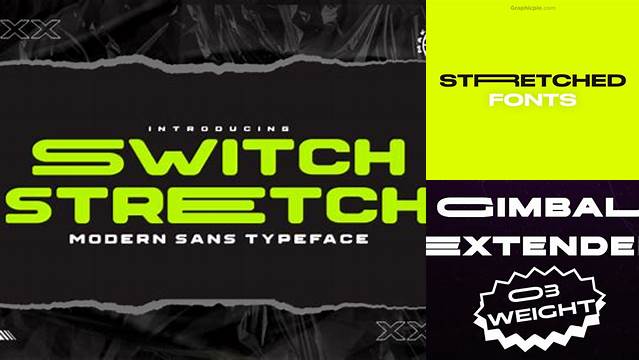
Stretched Fonts On DaFont: Your Guide
Are you looking to add a unique flair to your designs? Do you want to grab attention with bold, striking typography? Look no further! This guide delves into the world of stretched fonts available on DaFont, a popular platform for free and premium fonts. We'll explore what makes these fonts special, how to find them, and how to effectively use them in your projects. From understanding the different types of stretched fonts, such as wide fonts and extended fonts, to practical tips for incorporating them into your designs, we've got you covered. So, let's dive in and discover how stretched fonts can transform your creative endeavors!
What are Stretched Fonts and Why Use Them?
Stretched fonts are essentially typefaces that have been deliberately designed to be wider or more extended than their standard counterparts. This manipulation of the letterforms creates a distinctive visual impact, making them ideal for headlines, titles, and any design element where you want to make a statement. Stretched fonts can instantly grab the viewer's attention. Their distinctive appearance makes them stand out from the crowd, creating a memorable impression. These fonts are especially effective for branding, advertising, and any project where visual impact is paramount. Think about a website banner, a poster for an event, or the logo for a new brand. Stretched fonts can instantly elevate the visual hierarchy, making the most important text elements pop!
They come in different variations, from subtly extended to dramatically wide. This flexibility means you can find the perfect font to match your project's specific needs and aesthetic preferences. Whether you want to convey a sense of strength, modernity, or playfulness, there's a stretched font out there for you. The use of stretched fonts can also add personality to your work. A carefully selected font can reflect the tone and style of your project, enhancing the overall message. In the digital age, where people are bombarded with information, the ability to immediately capture attention is crucial. Stretched fonts can help you do just that, turning ordinary text into a powerful visual element that resonates with your audience. They are a fantastic tool in a designer's toolkit. They offer creative flexibility and the power to make your designs truly memorable.
Finding Stretched Fonts on DaFont: A Step-by-Step Guide
DaFont is a treasure trove of fonts, and finding the perfect stretched font might seem like searching for a needle in a haystack. But don't worry, guys! With a few simple steps, you can easily navigate the platform and discover the ideal typeface for your project. First, let's head to the DaFont website. Once there, you will see various categories. The key to finding stretched fonts is to use the search and filtering options. Go to the search bar and enter terms like "wide," "extended," or "stretched." Often, even just "bold" will yield some great results, as designers often make fonts bold and extended. Be sure to explore the "Theme" and "Style" categories on the site. This will help narrow down your search and find fonts that align with your project's overall aesthetic. In the "Theme" section, you might find options like "Groovy," "Techno," or "Retro," all of which often feature stretched font variations. The "Style" section may include options such as "Sans Serif," "Monospace," and "Handwritten." Stretched fonts come in all these styles, so experimenting with different styles in your search is beneficial.
Another great trick is to preview fonts using your text. DaFont allows you to type in your own text and see how it looks with different fonts. This is essential for stretched fonts, as their impact can vary greatly depending on the specific words you use. Type in your headlines, taglines, or any text you plan to use in your design. This will give you a real-world view of how each font appears. Pay attention to the character spacing and kerning. Stretched fonts can sometimes appear cramped or too loose, so adjusting the spacing is essential for readability and visual appeal. Don't be afraid to download several fonts and experiment with them in your design software. This allows you to compare the fonts side-by-side and choose the one that best fits your project. Finally, guys, remember to check the font's license before using it. While DaFont offers many free fonts, some may only be for personal use. Always verify the licensing terms to ensure you can use the font commercially if needed. That's it, guys! Happy searching!
Best Practices for Using Stretched Fonts in Your Designs
Now that you've found your perfect stretched font, let's talk about how to use it effectively. The key is to use these fonts strategically so they enhance your designs, not distract from them. First and foremost, consider readability. While stretched fonts can be eye-catching, they can sometimes be difficult to read, especially at smaller sizes. Always ensure your text remains legible, particularly for body copy or longer blocks of text. Consider using stretched fonts for headlines, titles, and short phrases where visual impact is most important. Pair them with more readable fonts for the body text to create a balanced design. Next, guys, pay close attention to contrast. Stretched fonts often work best when paired with a contrasting font style. For example, a wide, bold font can be effectively paired with a clean, thin sans-serif font for body copy. This contrast creates visual interest and guides the reader's eye. White space is your friend. Stretched fonts can take up a lot of horizontal space, so make sure to leave enough white space around the text elements. This ensures that the text doesn't feel cramped or overwhelming. Experiment with kerning and tracking. Many stretched fonts require adjustments to the kerning (the space between individual characters) or tracking (the space between all the characters in a word or phrase). Adjusting these settings can significantly improve the readability and visual appeal. Consider the overall design. Stretched fonts should complement the design's overall style. For a modern and minimalist look, consider a clean, geometric stretched font. For a more retro or playful design, explore fonts with unique shapes and styles. Remember the audience. Tailor your font choices to the target audience. A font that resonates with a younger audience may not be suitable for a more professional demographic. Most importantly, guys, experiment! Try different combinations of fonts, sizes, and styles to find what works best for your specific project. Don't be afraid to break the rules and try new things!
Alternatives to DaFont for Stretched Fonts
While DaFont is an excellent resource for stretched fonts, it's also worth exploring other platforms to diversify your font library and discover even more design options. Let's explore some great alternatives. Google Fonts is a fantastic option, guys, offering a wide range of free, open-source fonts. The platform makes it easy to browse, preview, and download fonts, including many that are stretched or can be manipulated to appear that way. Fonts are free for commercial and personal use. Another great option is Adobe Fonts. If you subscribe to Adobe Creative Cloud, you have access to thousands of high-quality fonts, including a diverse selection of stretched fonts. Adobe Fonts offers powerful customization options, and the fonts are seamlessly integrated with Adobe software. MyFonts is another platform with a vast collection of premium and free fonts. You can find fonts of every style and design there. They offer a wide variety of stretched fonts from independent designers and foundries. Creative Market is another good option. It's a marketplace where independent designers sell their fonts, graphics, and other design resources. You'll find a diverse collection of stretched fonts there, many with unique and creative styles. It's a great place to support independent designers. Typekit is a great option, too. It's an Adobe-owned font service that is now integrated with Adobe Fonts. It offers a diverse collection of fonts, including stretched fonts. Fontspring also has many stretched fonts and the option to pay one time for each font, so you're the owner for as long as you need. Exploring these alternative platforms will provide you with a broader range of options and help you discover the perfect stretched font for your project. Remember to consider the licensing terms of each font before using it in your designs. Happy font hunting, guys!